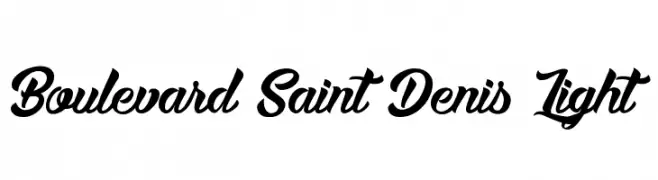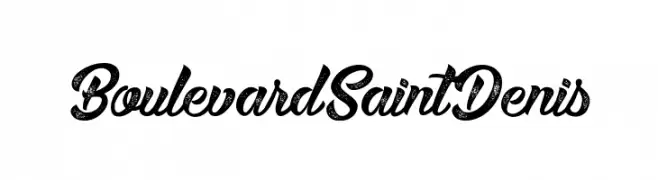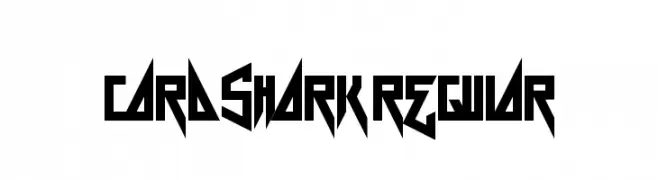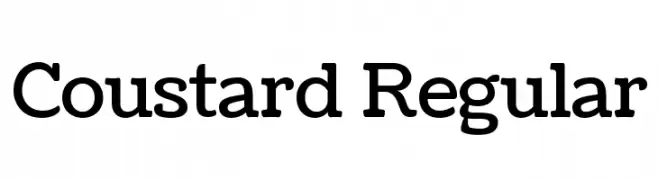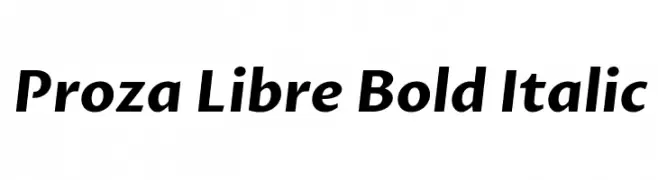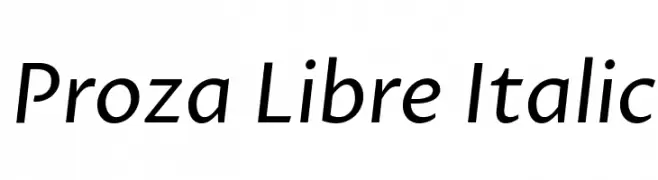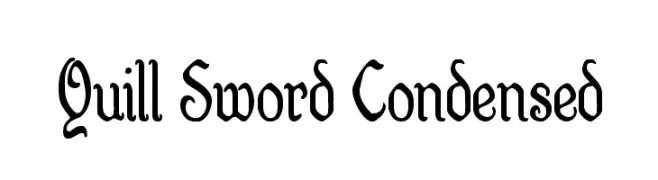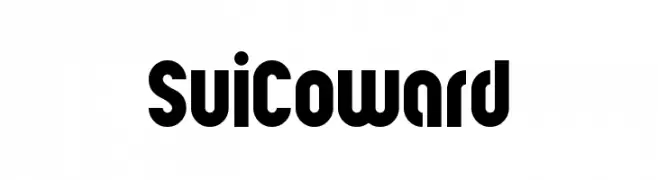
A decorative, medieval-inspired font with ornate details and a condensed width.
A bold, geometric font with a modern and impactful design.
A bold, angular font with a futuristic and edgy design.
A bold, textured script font with a vintage, hand-painted style.
A dynamic and flowing script font with elegant cursive letterforms.
A classic serif font with modern elegance and balanced stroke contrast.
A modern, bold, italic font with a clean and dynamic style.
A modern, italic sans-serif font with clean lines and a dynamic slant.
A modern sans-serif font with semi-bold weight and italic style, offering a dynamic and elegant look.